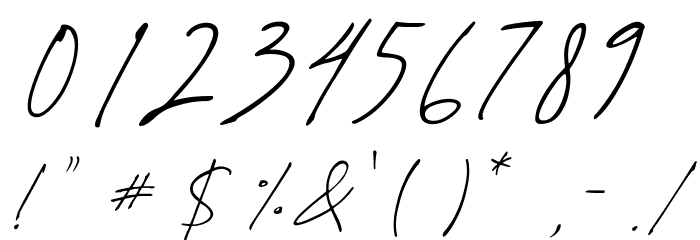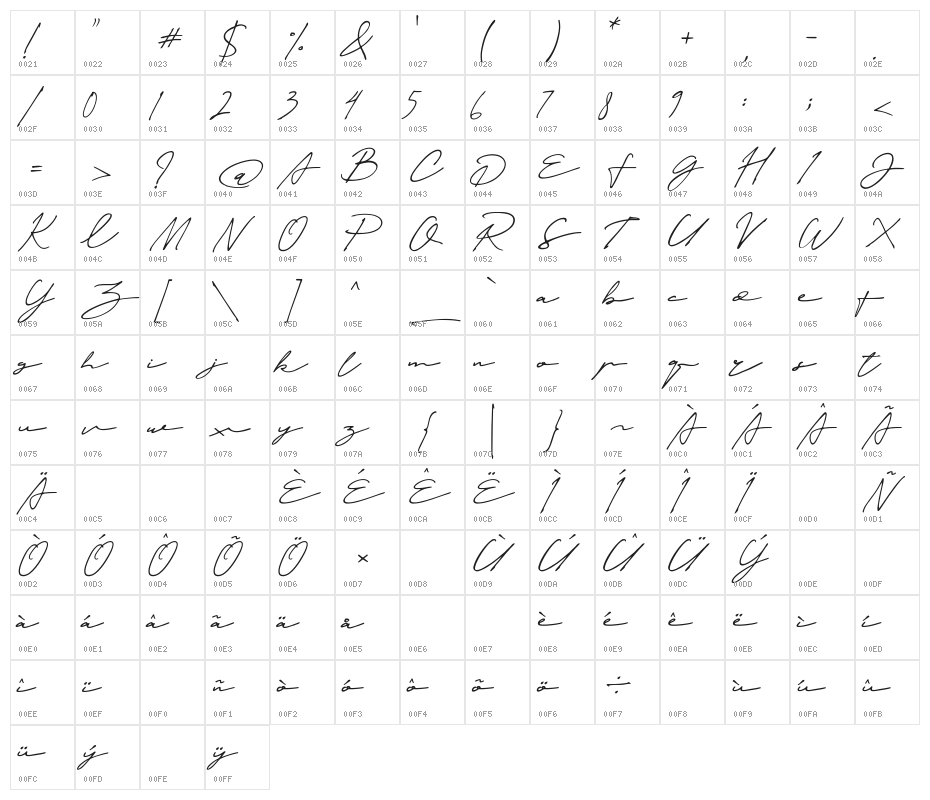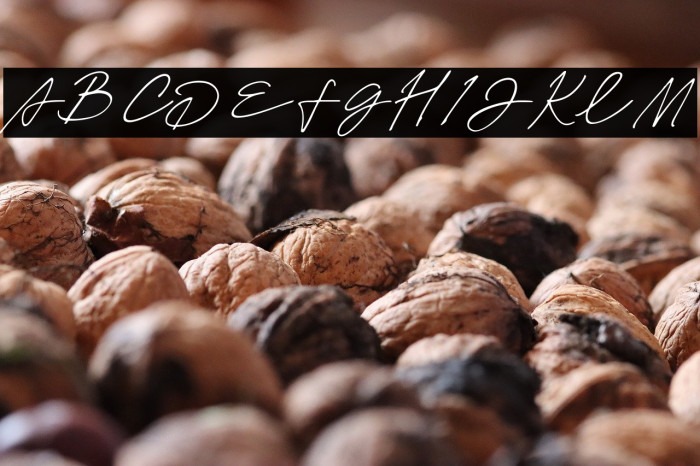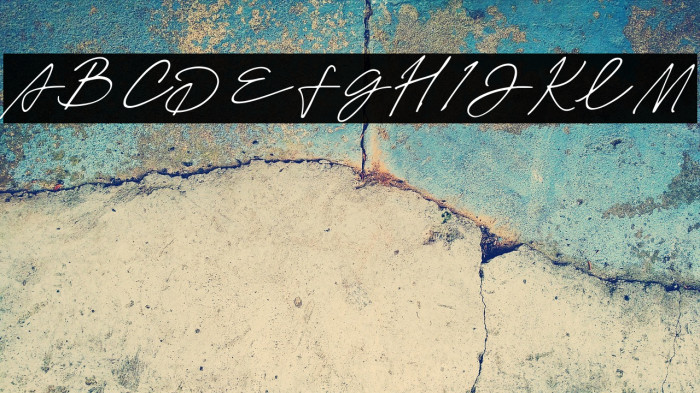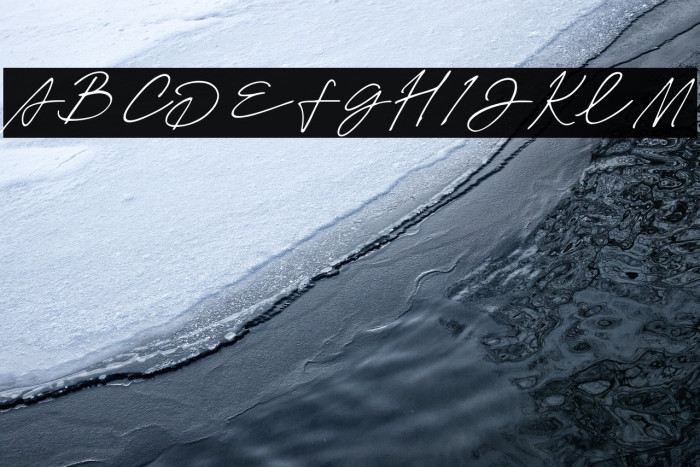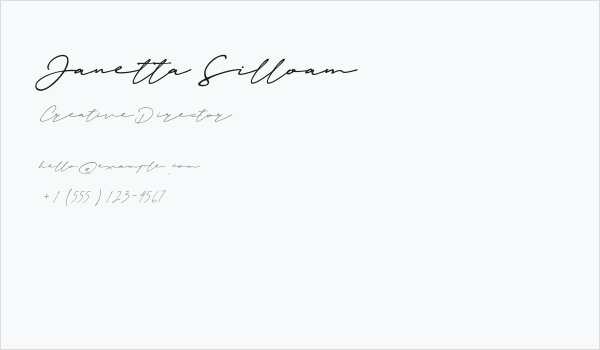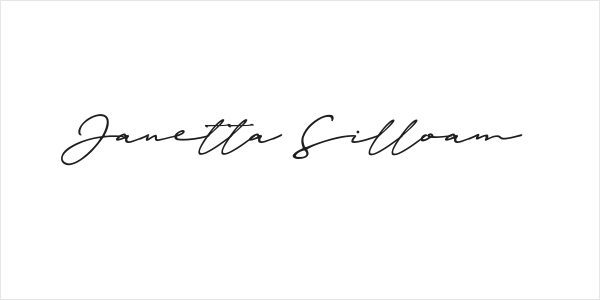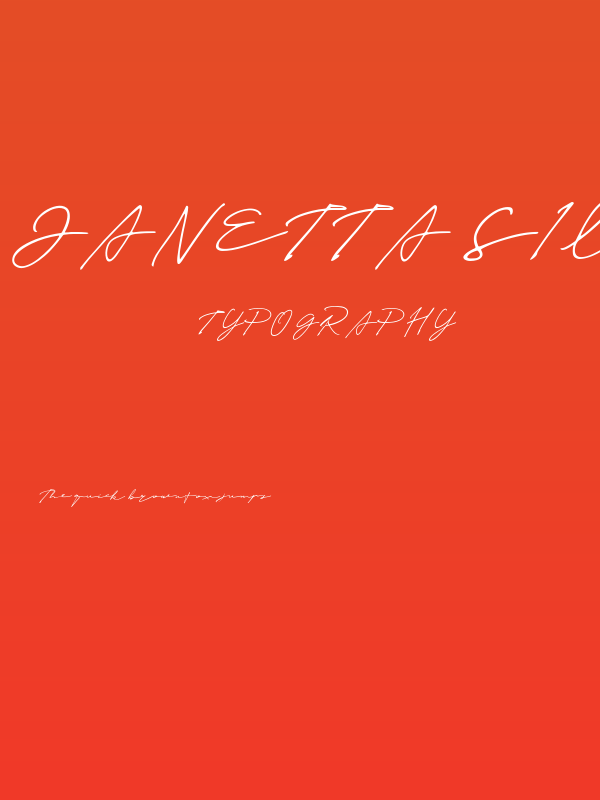
Janetta Silloam Font
Janetta Silloam Description
This elegant script font features fluid, cursive strokes that mimic the natural flow of handwriting. The uppercase letters are slightly larger and more ornate, while the lowercase letters maintain a consistent, flowing style. Numbers and special characters are designed to complement the overall aesthetic, maintaining the same fluidity and elegance. The font's thin lines and smooth curves give it a sophisticated and graceful appearance, making it ideal for projects that require a personal touch.
| Use Case | Logos, Invitations, Personal branding |
| Proposed Projects | Ideal for wedding invitations, greeting cards, personal branding, and elegant packaging designs. |